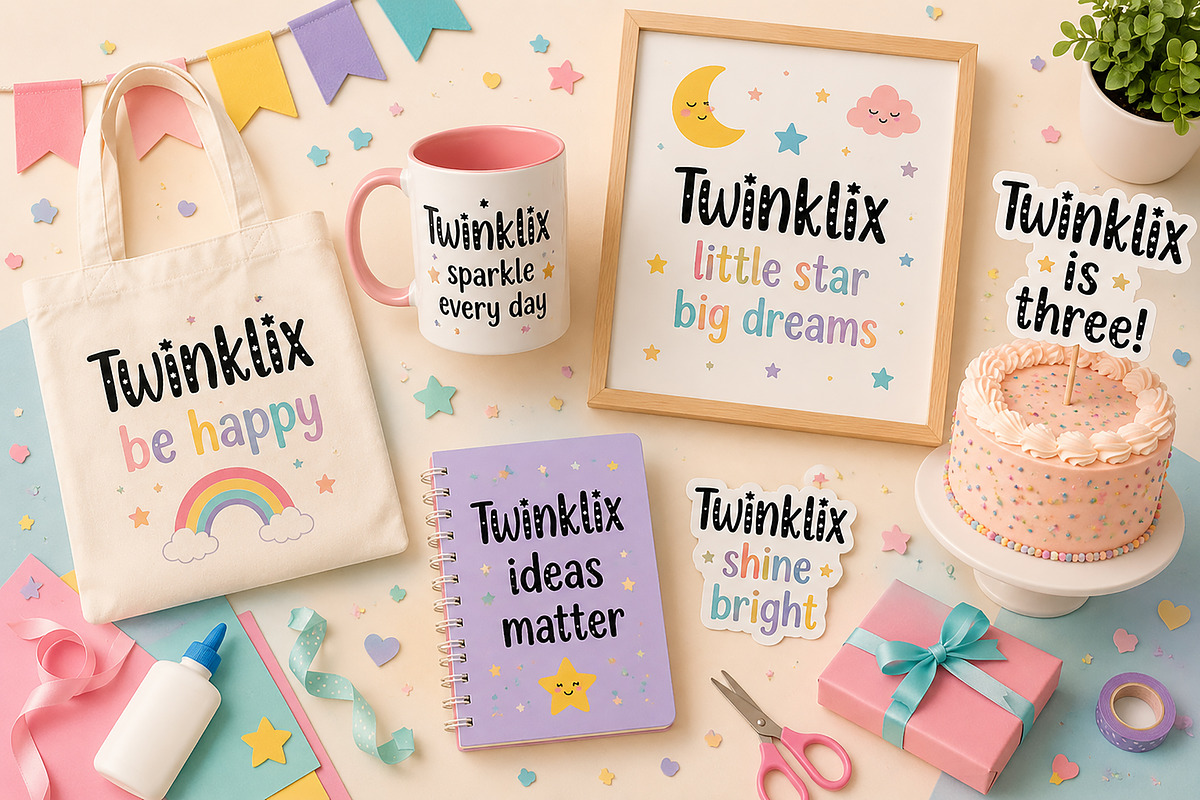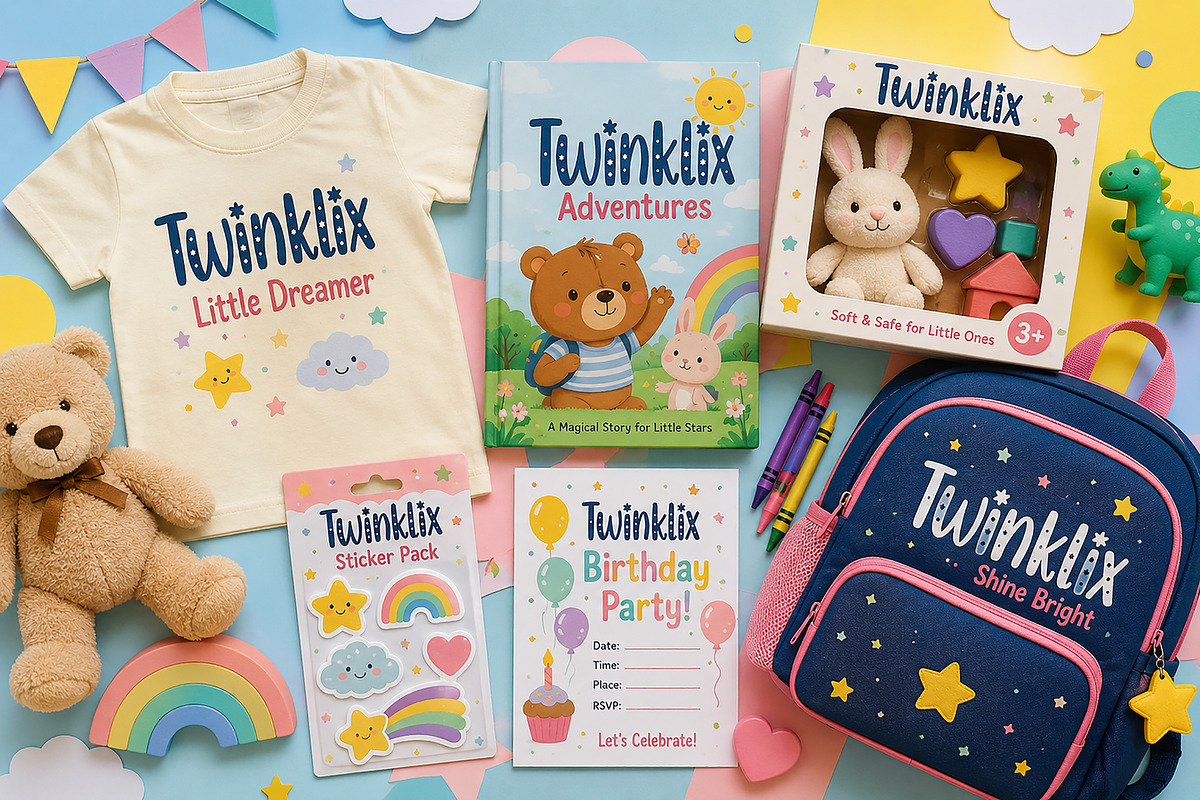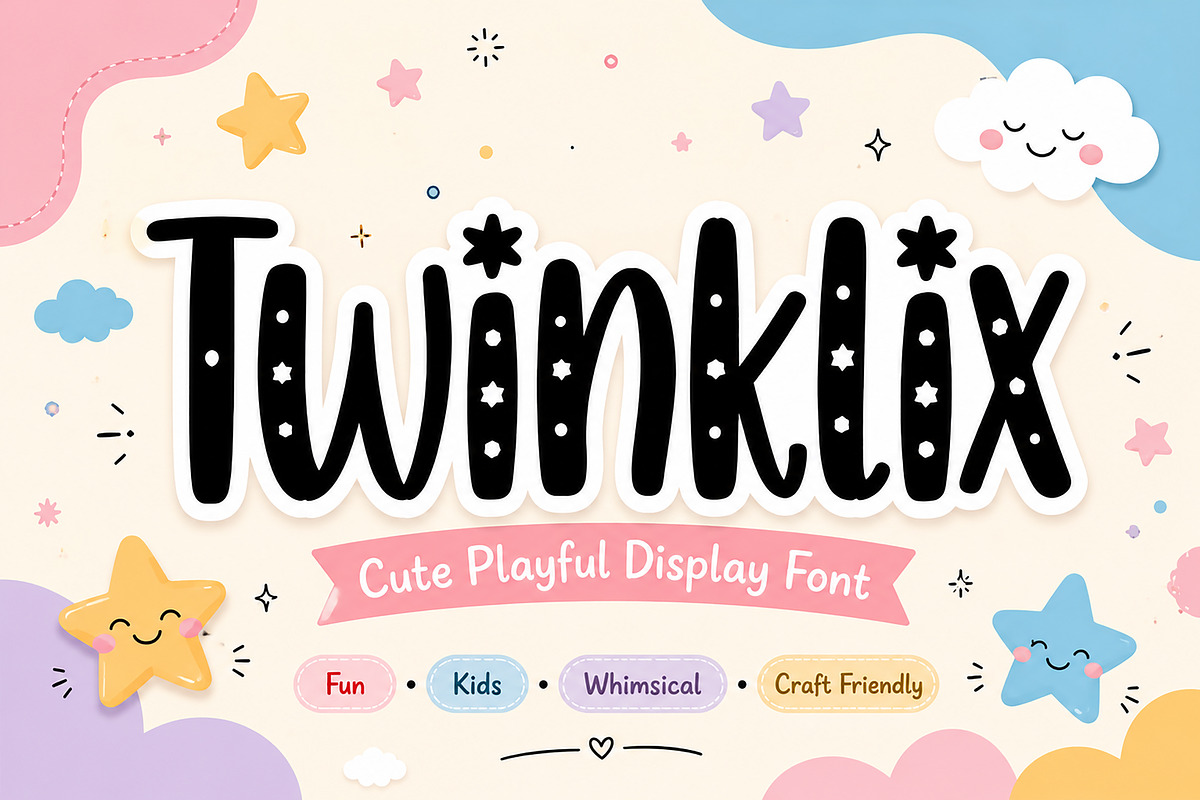
Twinklix
Twinklix is a cute and playful display font designed to bring joy, imagination, and creativity into your projects. With its hand-drawn charm, whimsical star details, and friendly rounded shapes, Twinklix is perfect for kids-themed designs, storybooks, party invitations, Cricut crafts, and playful branding.
Its fun and cheerful personality makes it ideal for creating eye-catching titles, nursery decor, toy packaging, stickers, educational materials, and social media graphics. Whether you’re designing for children’s products or crafting heartwarming DIY projects, Twinklix adds a magical and charming touch to every design.
Kids book covers
Birthday invitations
Toy packaging
Nursery wall art
Cricut crafts
Stickers & decals
T-shirt designs
School projects
Social media posts
Cute branding
Bring your ideas to life with the fun, sweet, and sparkling style of Twinklix.